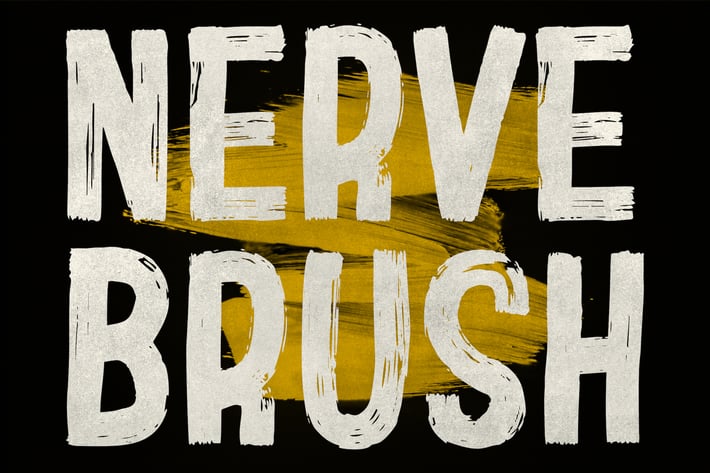
Nerve Brush Modern Branding Sans Serif Brush Font
Nerve Brush is a bold modern brush font with a sans serif structure, crafted for high-impact branding and contemporary visual appeal. Its expressive strokes and confident style make it ideal for product packaging, headlines, streetwear designs, and promotional materials.
A perfect blend of edgy brush texture and clean letterforms for creatives who want to make a statement.
Key Features:
- Bold sans serif with brush texture
- Ideal for branding, posters, and packaging
- Strong visual presence with handcrafted feel
- Great for fashion, streetwear, and digital content
- Uppercase and lowercase letters
- Numerals and punctuation
- Multilingual language support
Make your message bold and unforgettable with Nerve Brush.